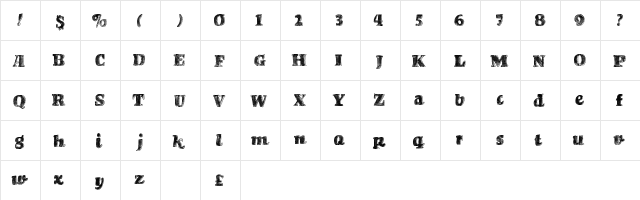
BrandStruck Regular
| Foundry | Xerographer Fonts |
| Designer | Max Infeld Xerographer Fonts |
Design Context for BrandStruck Typeface
BrandStruck is a composed and adaptable typeface that performs quietly and consistently across a wide range of design contexts.